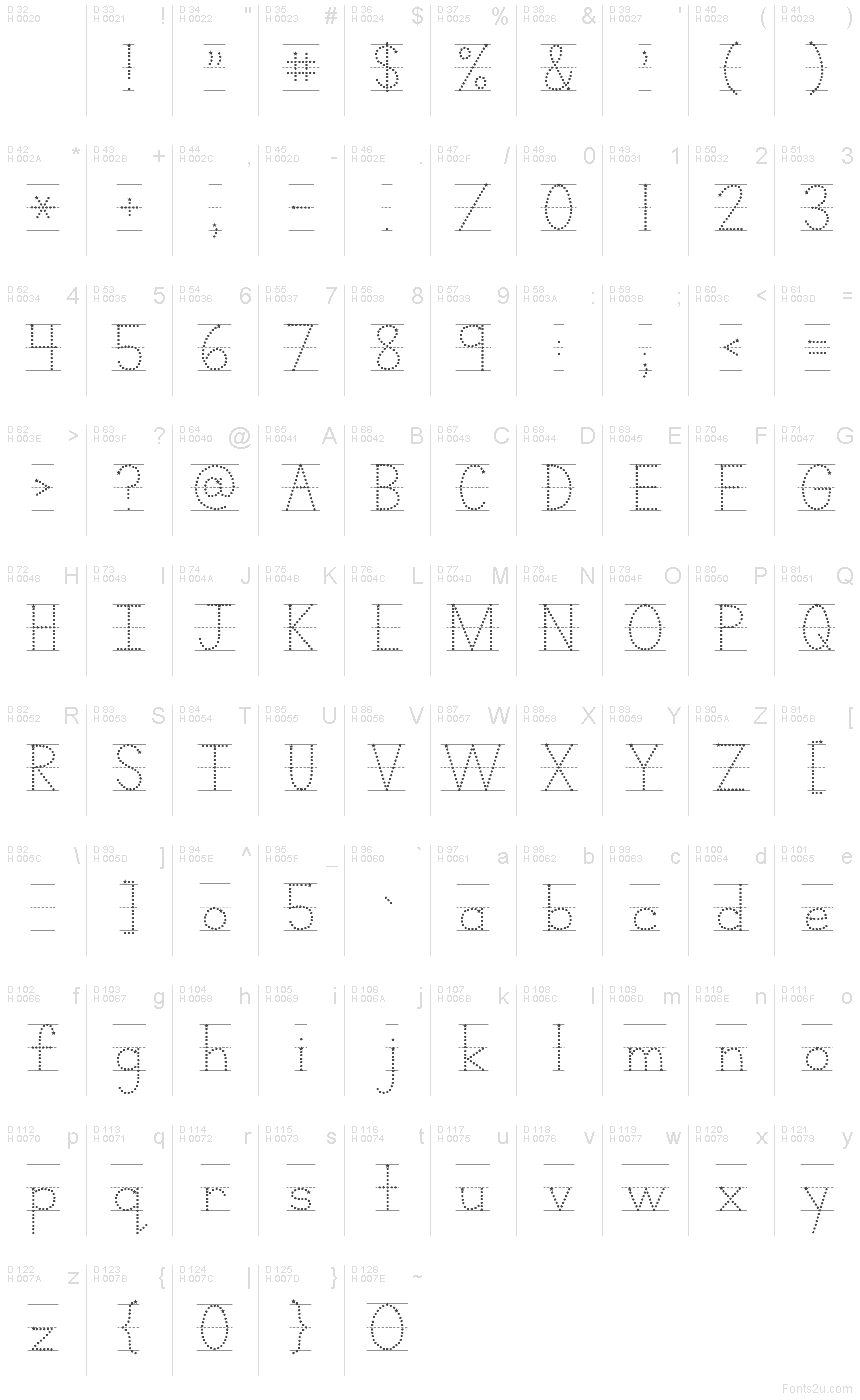
KG Teacher Created Star Lined 2
KG Teacher Created Star Lined 2 font by Kimberly Geswein is a free school script typeface. Part of the KG Teacher Created family, it solves the worksheet headache with built-in ruled lines and star tracers that guide each stroke. Letters sit evenly with generous spacing, so kids can follow along without crowding, and the soft gray guides stay subtle while the forms remain crisp and readable.
Using KG Teacher Created Star Lined 2, you can whip up tracing sheets, classroom posters, flashcards, homeschool packets, reward charts, and name tags that look consistent and kid-friendly. This free font shines when printed large for practice pages, then scaled smaller for labels. Pair it with a simple sans for instructions, or a clean member of the KG Teacher Created family for headings to keep everything cohesive.